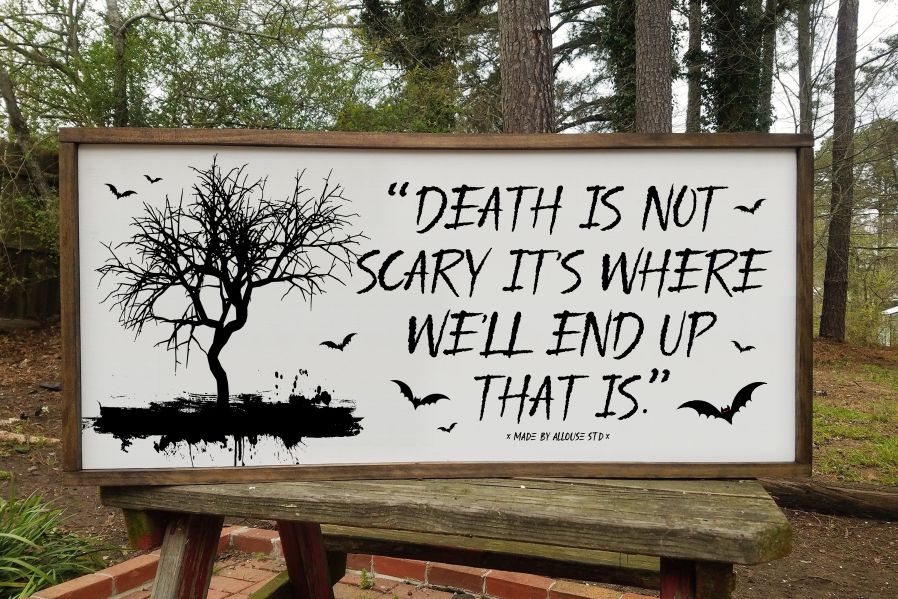
Deathmore Font
Deathmore Font is a casual, readable and trendy handwritten font. Quirky and a bit sloppy, this font will instantly make your school or child related projects come to life!